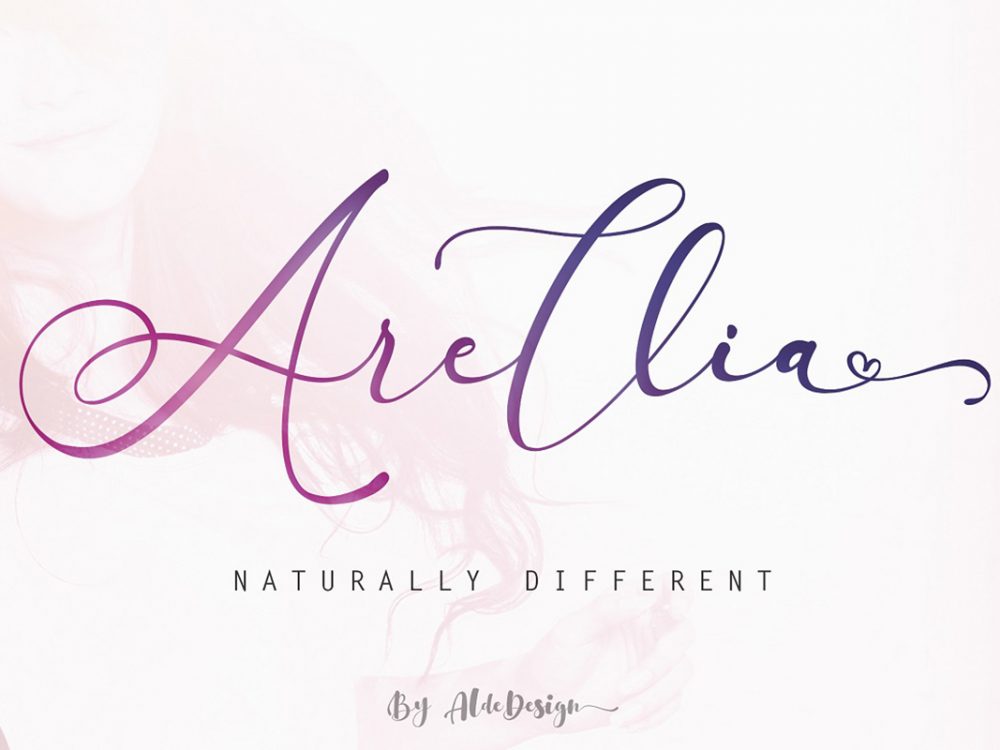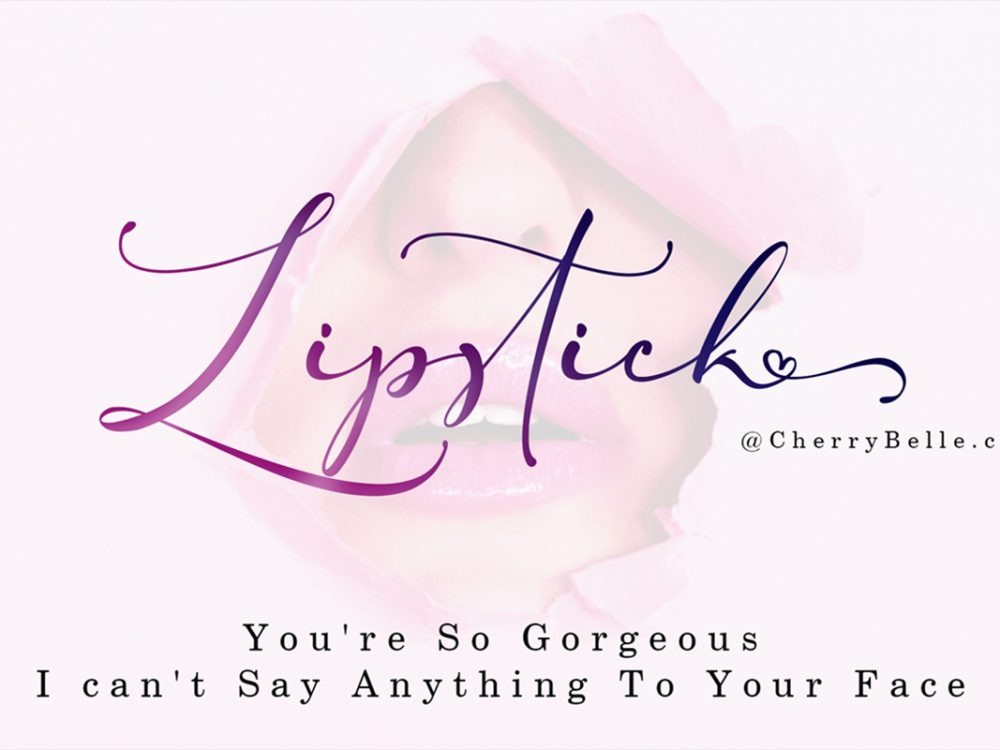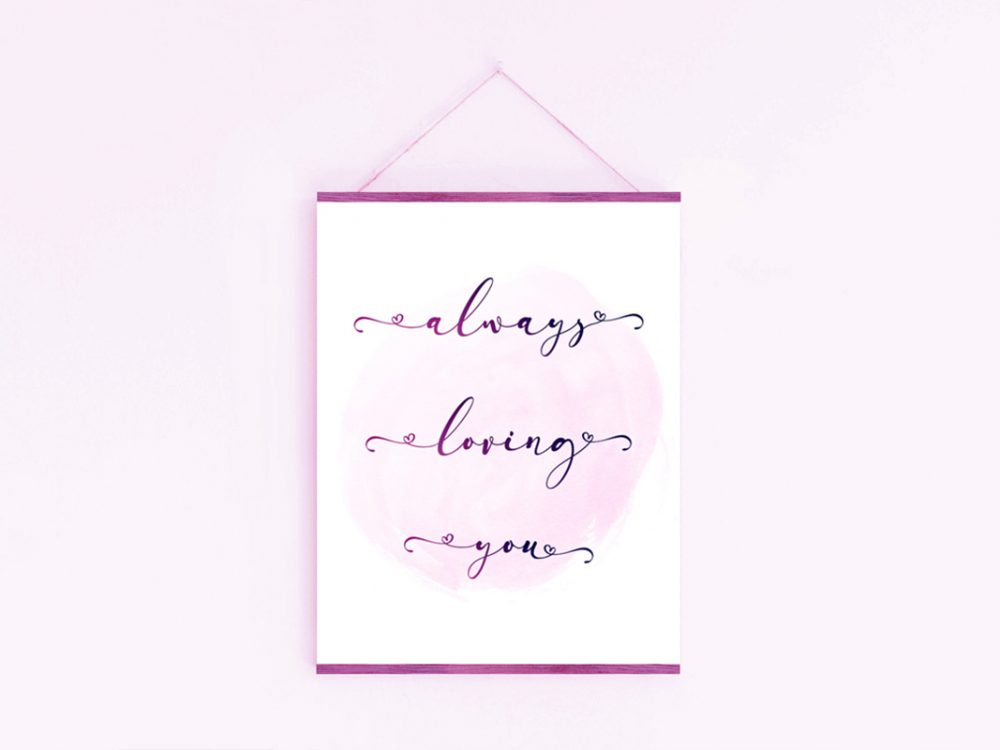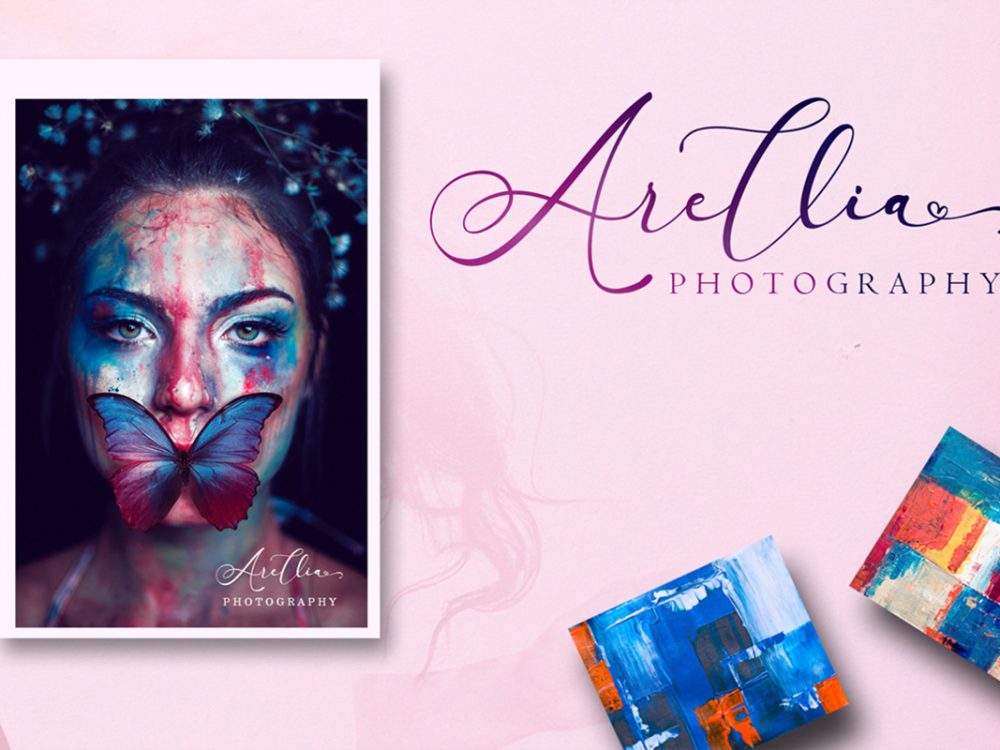
Arellia Script Free Font
Arellia Script Free Font is an interesting calligraphic font with an elegant style. This font offers your personal touch to your latest art project with an elegant, classy, ​​and modern look. You can use this font to create memorable posters, wedding invitations, greeting cards, branding, flyers, t-shirt and pillow prints, and more. If you like it don’t forget to check out the full version.